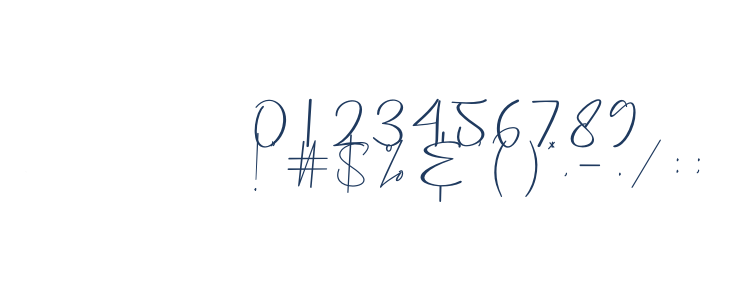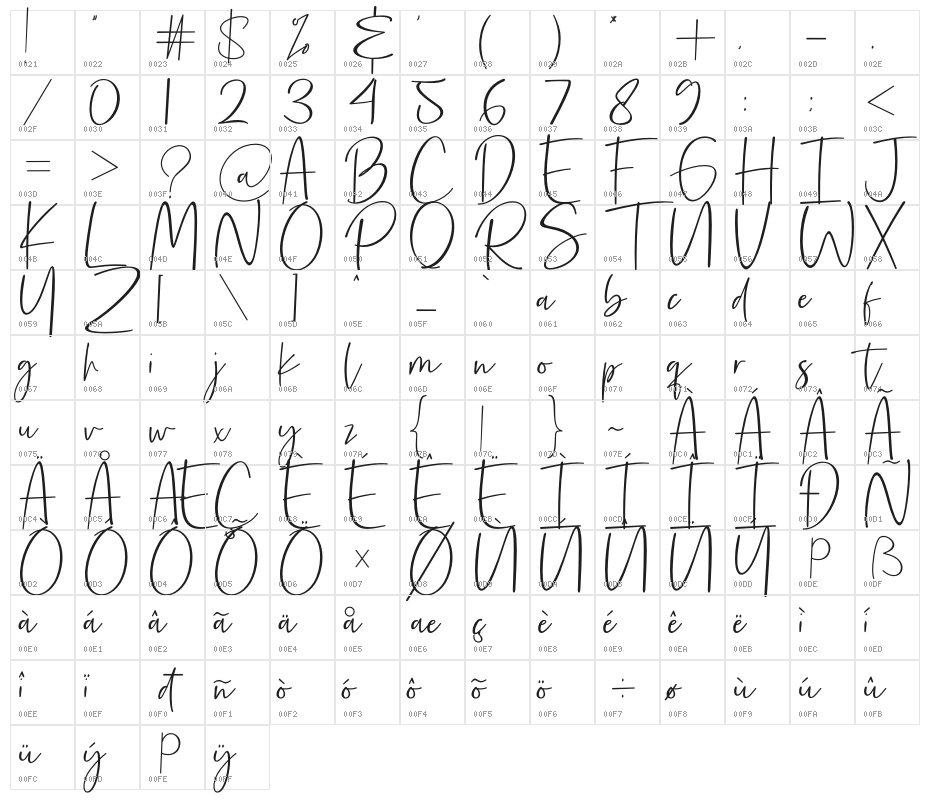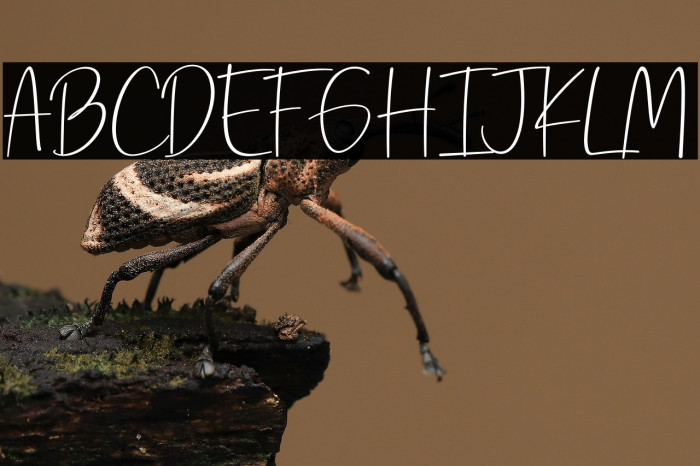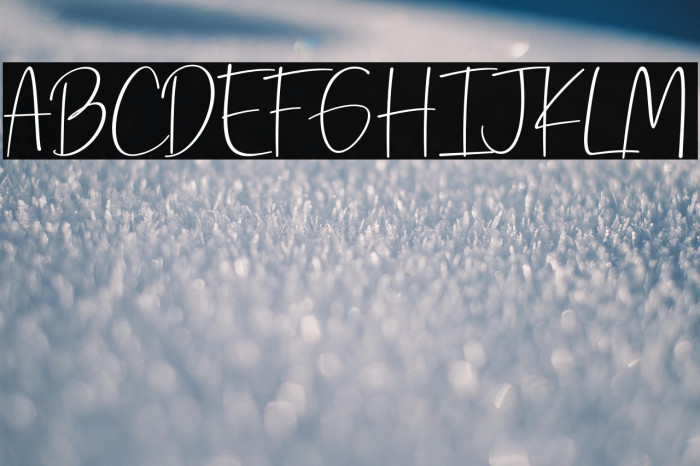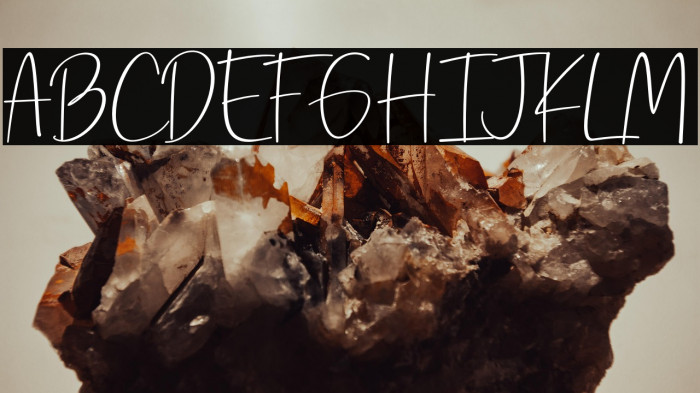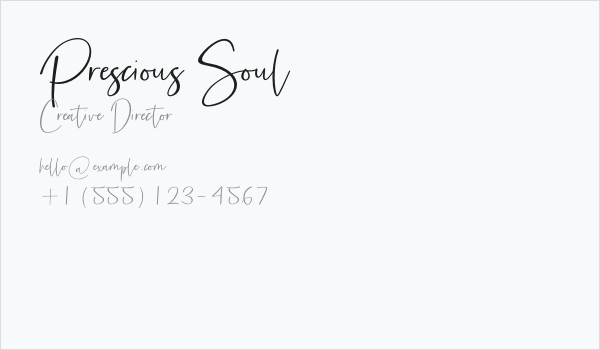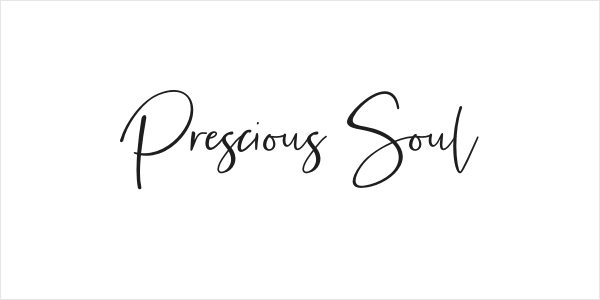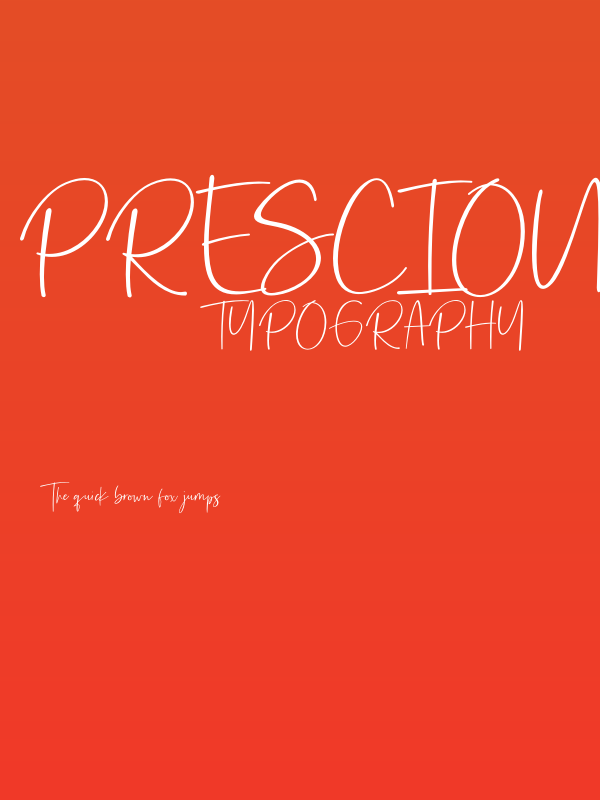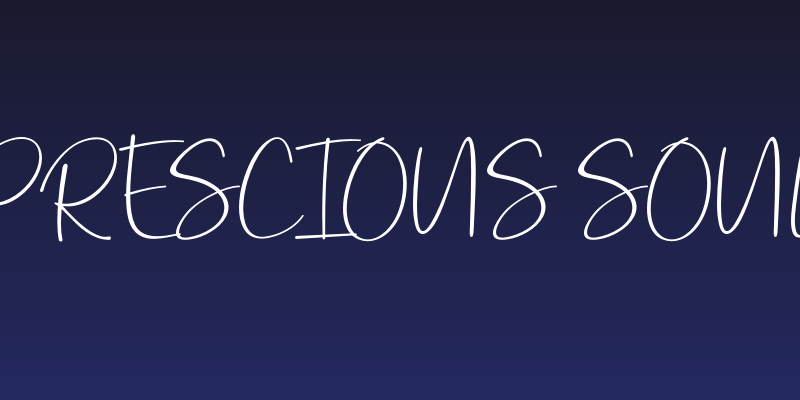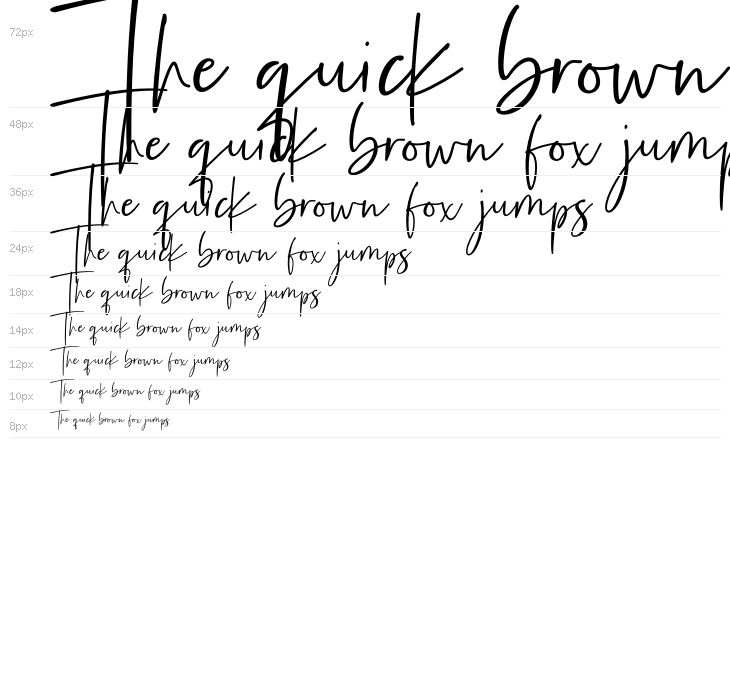
Prescious Soul Font
Prescious Soul Description
This font exudes a casual and artistic flair, characterized by its handwritten style that combines both uppercase and lowercase letters with a fluid, cursive touch. The uppercase letters are tall and slender, maintaining a consistent height, while the lowercase letters exhibit a more playful and varied form, with some letters extending below the baseline. The numbers are clear and legible, matching the overall aesthetic of the font. Special characters are creatively designed, adding to the font's unique personality. The strokes are smooth and continuous, giving a sense of movement and dynamism. This font is perfect for projects that require a personal and informal touch, such as invitations, greeting cards, or artistic branding.
| Overall Style | Casual, Artistic |
| Use Case | Invitations, Greeting cards, Artistic branding |
| Proposed Projects | Ideal for invitations, greeting cards, artistic branding, and personal projects. |